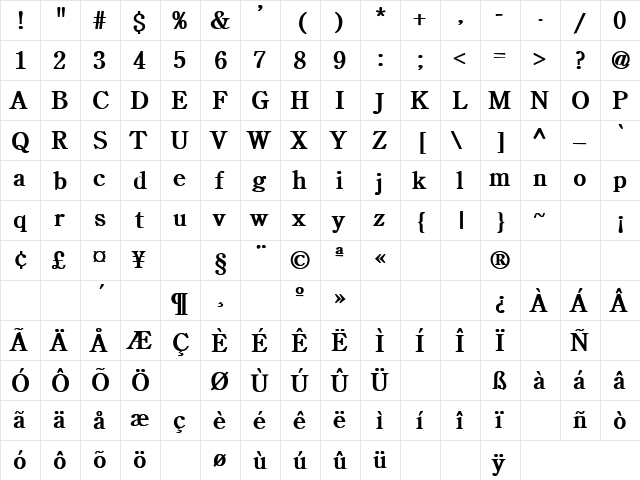
Adam's Apple 6 Bold
Design Context for Adam's Apple 6 Typeface
Adam's Apple 6 offers clean, dependable letterforms without strong stylistic allegiance, making it a practical choice for designers who need flexibility. The heavy weight commands attention and anchors typographic hierarchies.